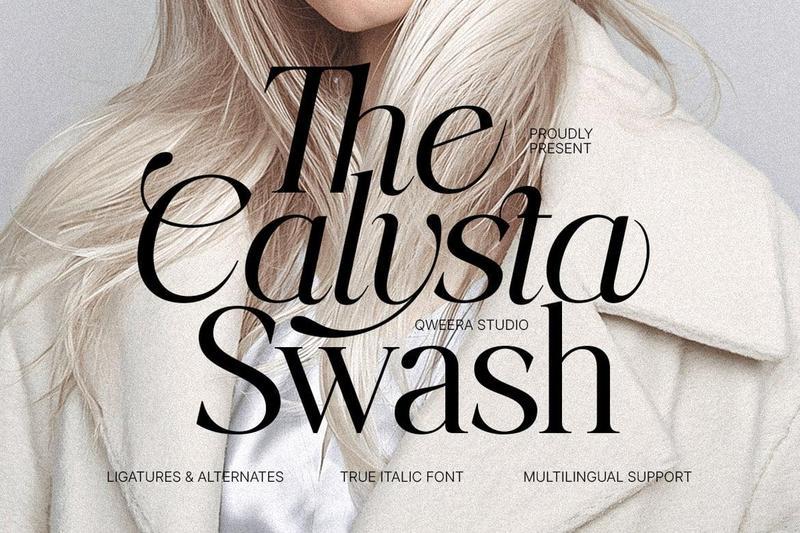
**The Calysta Swash** is an elegant luxury serif typeface designed to bring graceful sophistication and premium beauty into modern creative projects. Featuring refined letterforms, stylish swashes, elegant ligatures, and true italic styling, this font creates a luxurious typographic presence for high-end design work.
Perfect for luxury branding, fashion editorials, beauty packaging, wedding invitations, boutique identities, magazine layouts, feminine logos, and premium stationery.
The Calysta Swash blends romantic serif elegance with modern editorial confidence, making it an excellent choice for designers seeking refined typography with expressive swash details.
**Features**
– Uppercase & lowercase
– Alternates & ligatures
– Multilingual support
– Professional kerning
– Regular & True Italic
**Perfect For**
Luxury branding, fashion editorials, beauty packaging, wedding invitations, boutique logos, magazine layouts, premium stationery